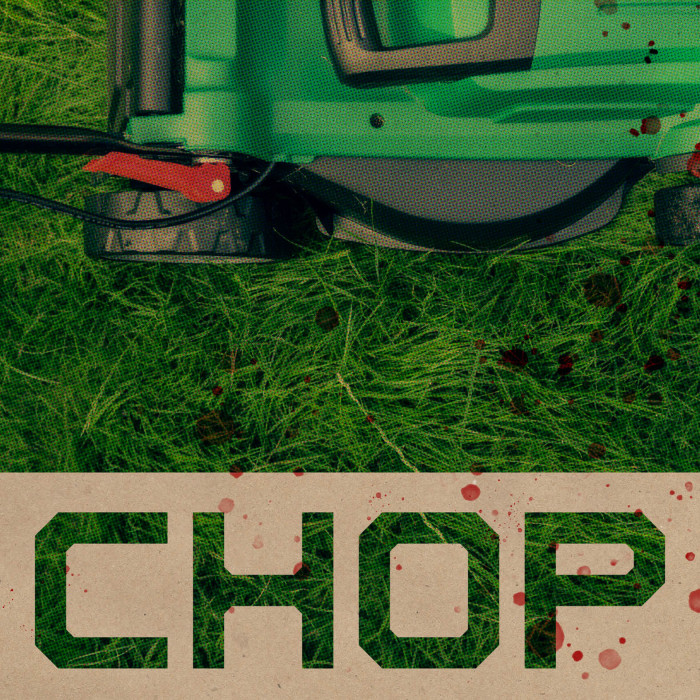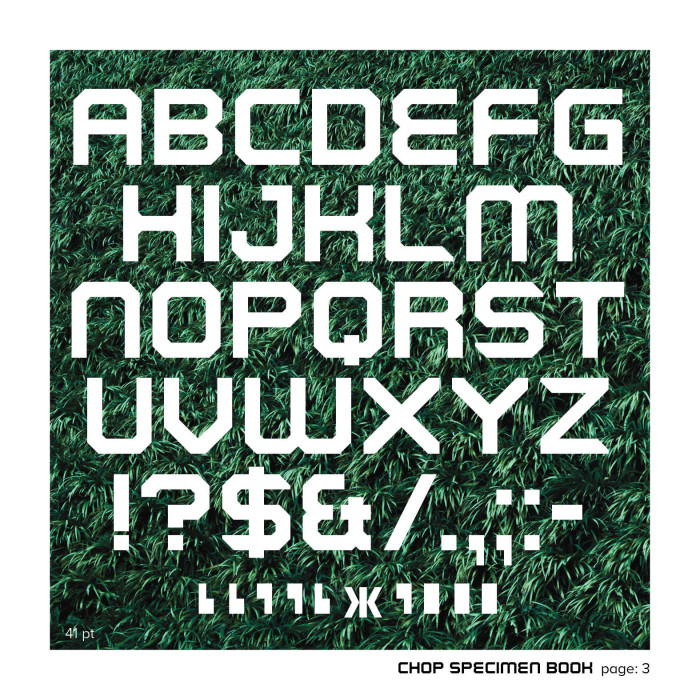
• The typeface Chop originally came into fruition as Chop Chop and was later shortened for convenience. The name comes from the process in which it was made, by chopping off what would normally be rounded. It has both playful and sinister qualities. Chop reminisces of a simpler time when computer games still came on floppy disks and the Internet was dial-up.
Common uses for Chop include but are not limited to: laser engraved ax handles, mix CDs, laser engraved knife handles, mixtapes, album covers and graffiti.
Why do I see a superscript Cyrillic ж instead of an asterisk? :D
Nice ampersand, by the way :)